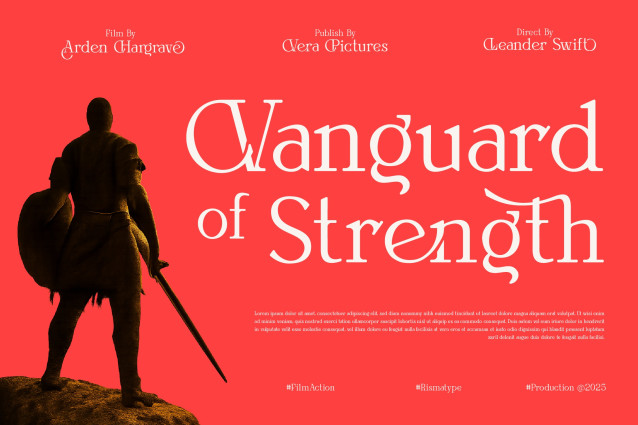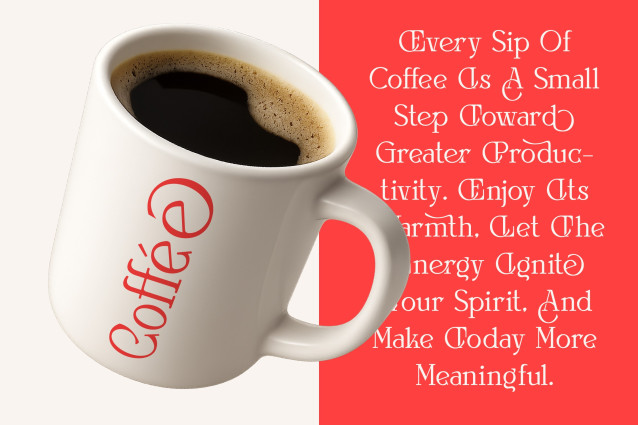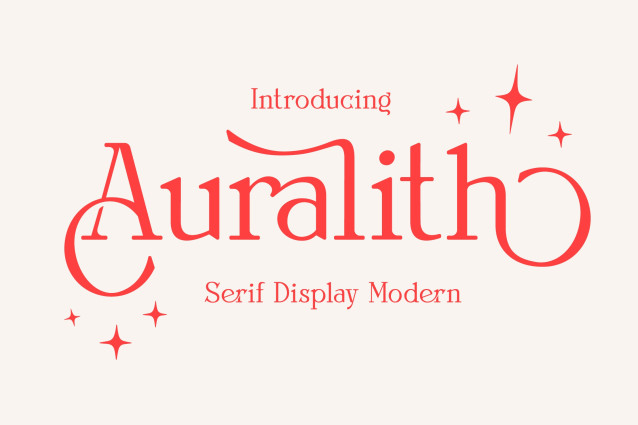
Auralith Font
Auralith Font is a modern serif display font designed to make a bold and sophisticated statement. Combining sharp. clean lines with intricate serifs, it captures the essence of contemporary design while maintaining a classic charm. Perfect for high-end branding.
editorial design, and headlines.
Auralith adds a touch of elegance and strength to any project. Ats distinctive character forms make it ideal for projects that demand attention, offering both readability and style. Whether used in large displays or impactful logos, auralith brings a refined, modern edge to your typography.